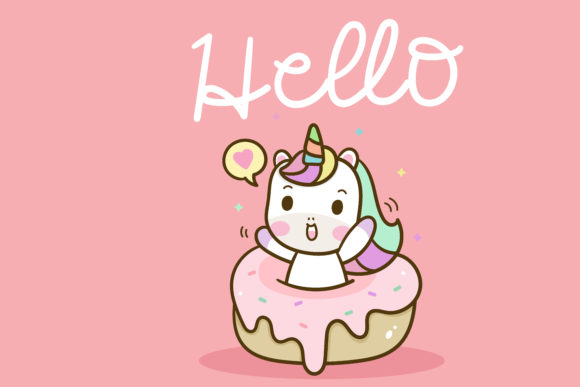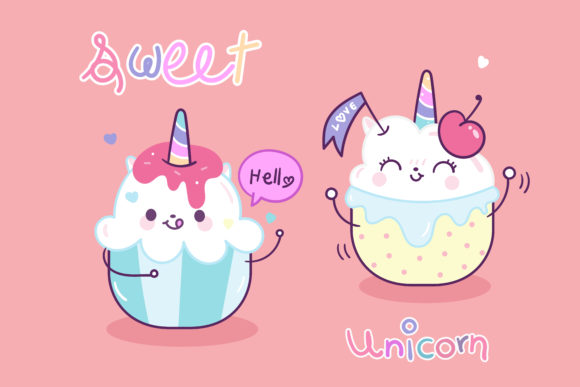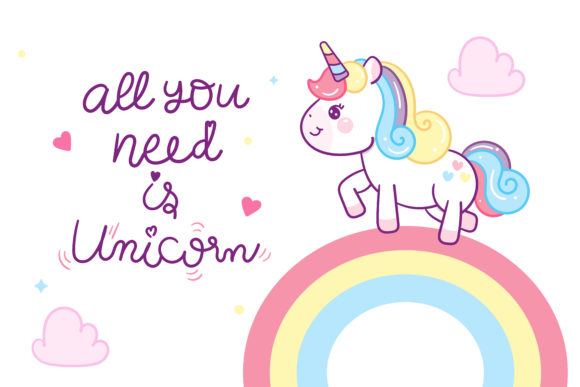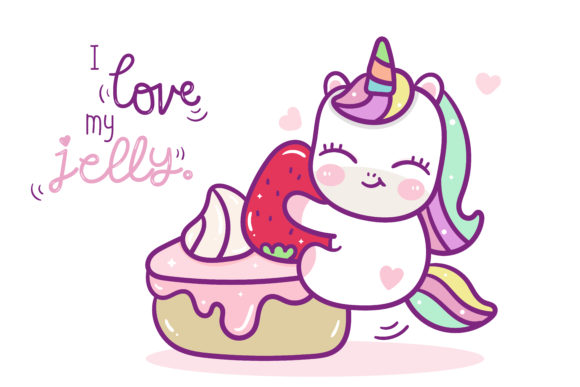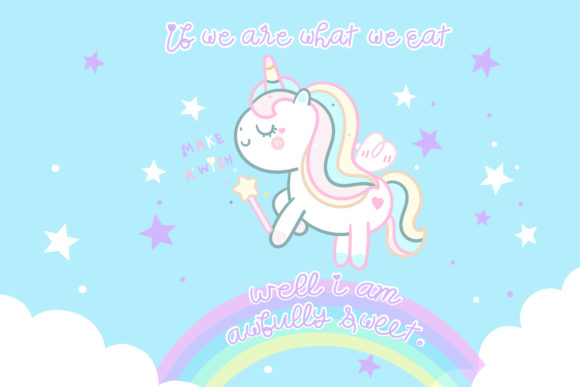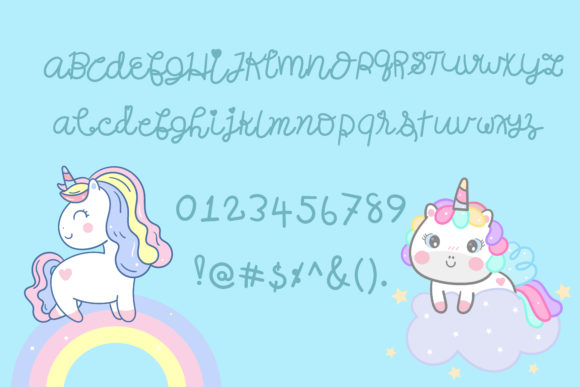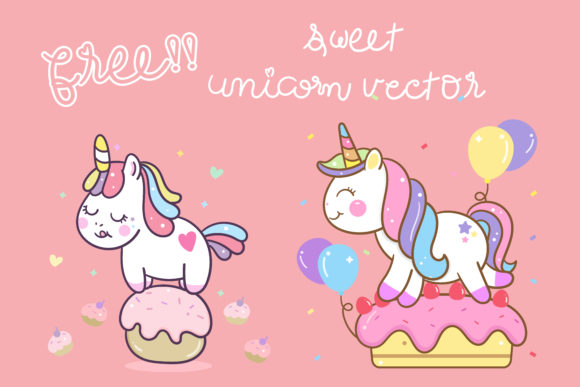
Sweet Unicorn Font
About Sweet Unicorn Font
Sweet Unicorn delivers an outstanding script experience. Fall in love with its quirky charm, and ignite your creativity with the included unicorn illustrations.